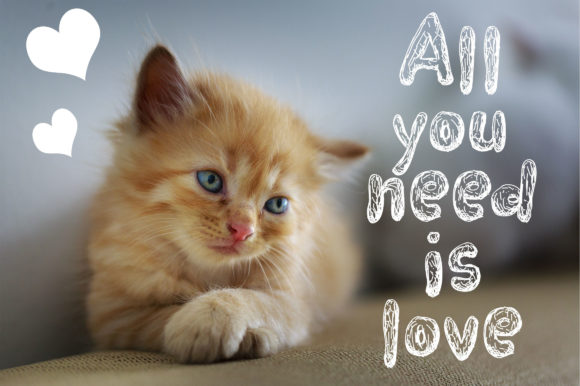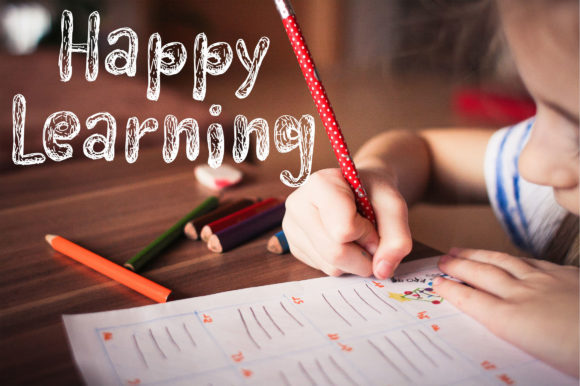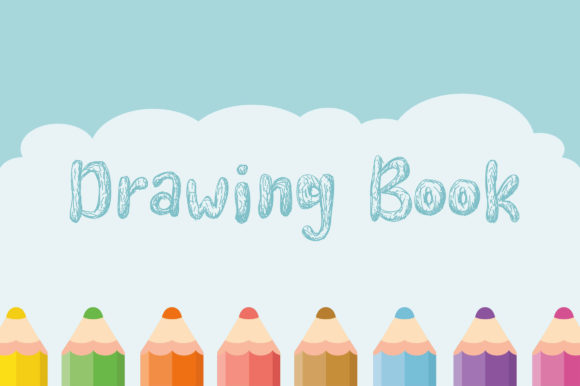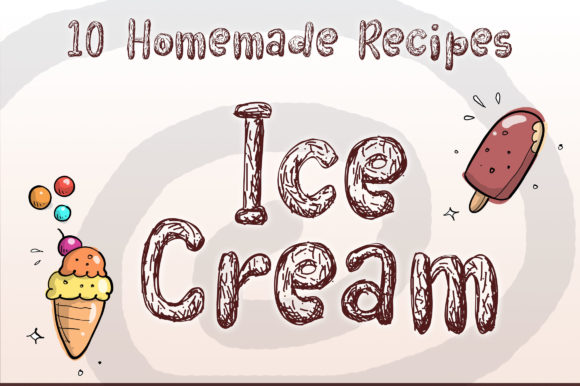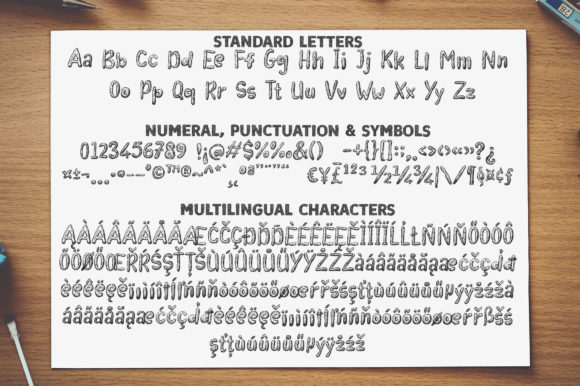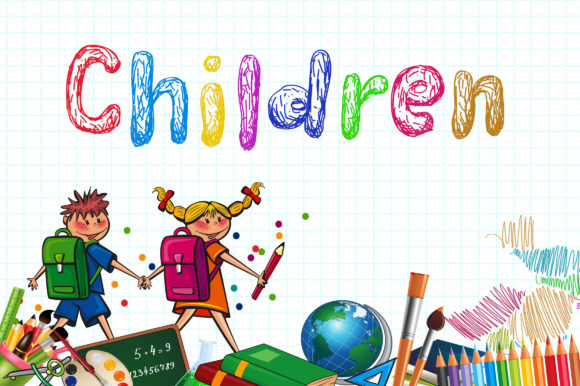
Introduction to Kid Stories Font
Have you ever been working on a creative project and suddenly, you’re stuck for the perfect font to capture the essence of your idea? You scroll through your design resources, trying to find that one font that screams ‘fun’ and ‘playful’.
Well, we’ve got you covered! Introducing the Kid Stories Font, a high-quality, free download that’s sure to add a touch of whimsy to your designs. With its fancy pen sketch display style, this font is perfect for creating eye-catching titles, headings, and even entire layouts for books, magazines, and flyers.
As a valuable resource for designers, the Kid Stories Font offers a transparent background, making it easy to work with and customize to fit your needs. Whether you’re working on a personal project or a client-based design, this font is sure to be a game-changer.
Key Features of Kid Stories Font
- High-quality design for creative projects: Kid Stories Font is designed to add a playful touch to your designs, making it perfect for kids’ books, educational materials, and other creative projects.
- Large character set: This font includes a wide range of characters, including uppercase and lowercase letters, numbers, and punctuation marks, making it suitable for a variety of design projects.
- High-resolution design: Kid Stories Font is designed at a high resolution, ensuring that it looks great on both small and large scales.
- Perfect for kids’ content: With its fun and playful design, Kid Stories Font is ideal for kids’ books, magazines, and other content that requires a child-friendly aesthetic.
Honest Review: Kid Stories Font
As a designer, I’m always on the lookout for high-quality design resources to enhance my creative projects. The Kid Stories Font caught my eye, and I decided to give it a try. ✨ Here are my thoughts.
One of the standout features of the Kid Stories Font is its transparent background. This makes it easy to use as a clip-art or overlay in design software. The font is also highly customizable, with a range of styles and sizes to choose from.
- Playful and whimsical design
- Customizable
While the Kid Stories Font is a great resource, it’s not without its limitations. ⚠️ Some users may find the font a bit too playful or childish for certain projects. Additionally, the font may not be suitable for professional or formal projects where a more serious tone is required.
Overall, I’m impressed with the Kid Stories Font. It’s a great addition to any designer’s toolkit, and I’d definitely recommend it for creative projects that require a youthful and playful tone.
To get the most out of the Kid Stories Font, use it in conjunction with a transparent background to create a sense of depth and dimension. You can also experiment with different font sizes and styles to create a unique and engaging design.
The Kid Stories Font is perfect for a variety of creative projects, including children’s book illustrations, educational materials, and marketing materials. Its high-quality design and transparent background make it a valuable resource for designers and creatives.